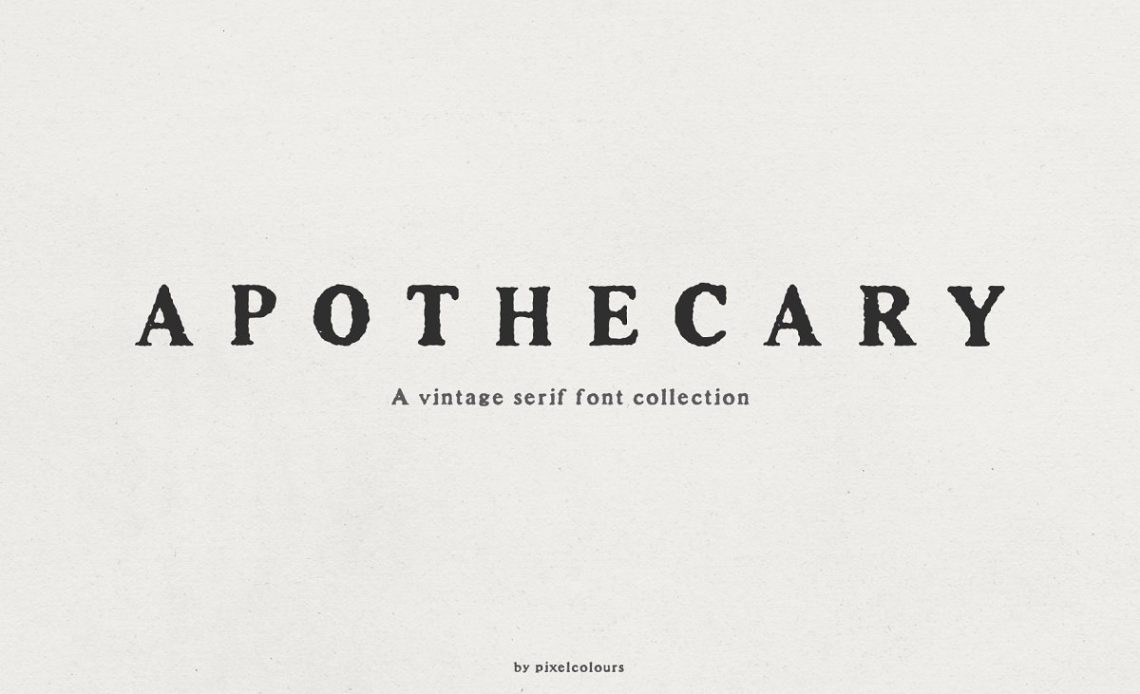
Welcome to the Apothecary Serif Font Collection, a stunning serif font collection that is perfect for anyone looking for a vintage and antique-inspired font that will take their design projects to the next level. Created by Pixel Colours, this collection is a must-have for anyone looking to elevate their design game and create something truly unique.
One of the standout features of this collection is the beautiful antique print texture that is included in the Apothecary Serif font. This font is perfect for use in text or headings and pairs perfectly with other fonts in the collection. Whether you are designing quotes, packaging, wedding invites, or labels, this font collection will help you achieve the vintage look and feel that you are going for.
Another great feature of the Apothecary Serif Font Collection is the Apothecary Serif Caps font. This rich, bold, and tall textured capitals font is great for headings or as drop caps. It includes the lowercases as a secondary uppercase font, slightly smaller, making it incredibly versatile and perfect for a wide range of design projects.
If you are looking for a font that is beautifully spaced for texts or as a pairing font, then you will love the Apothecary Serif Spaced and Apothecary Serif Caps Spaced fonts. These fonts are perfect for use in a wide range of design projects and will help you achieve the look and feel that you are going for.
One of the great things about the Apothecary Serif Font Collection is that it includes language support, making it accessible to designers from around the world. And if you are looking to take your design projects to the next level, be sure to match this beautiful font with Pixel Colours' Apothecary Script font that is sold separately.
If you are a chic designer looking to add a touch of vintage elegance to your designs, then you need to check out the Apothecary Serif Font Collection. Created with love by Bec from Pixel Colours, this font collection is perfect for anyone who is passionate about graphic design and wants to create something truly unique. So why wait? Start exploring the Apothecary Serif Font Collection today and take your design projects to the next level!